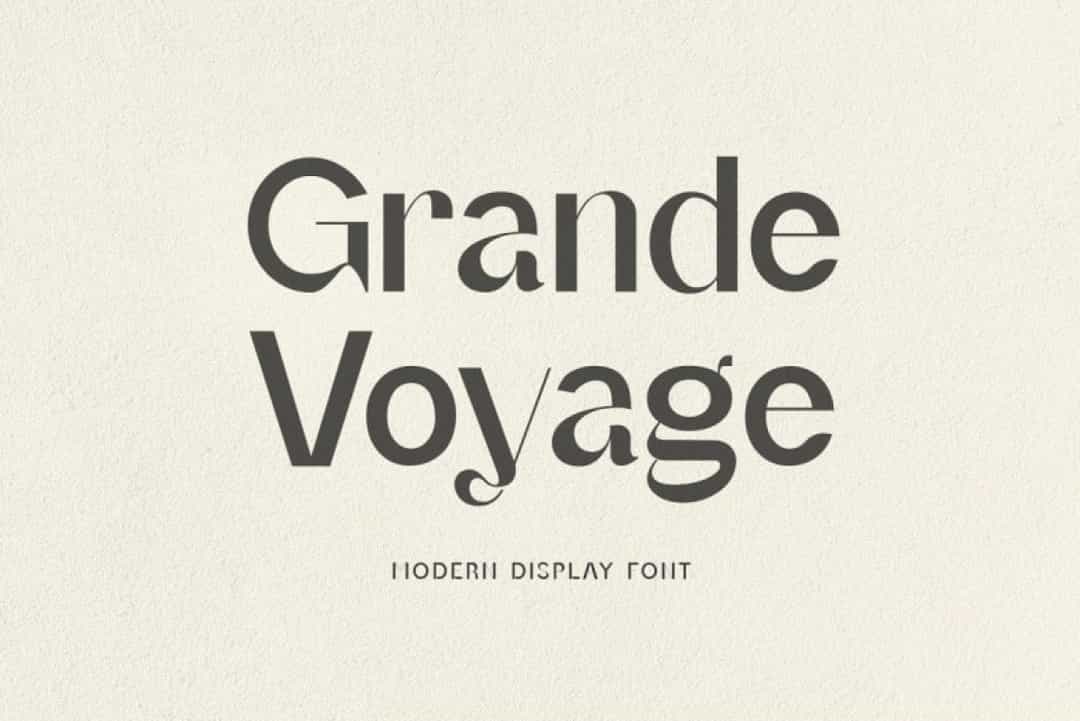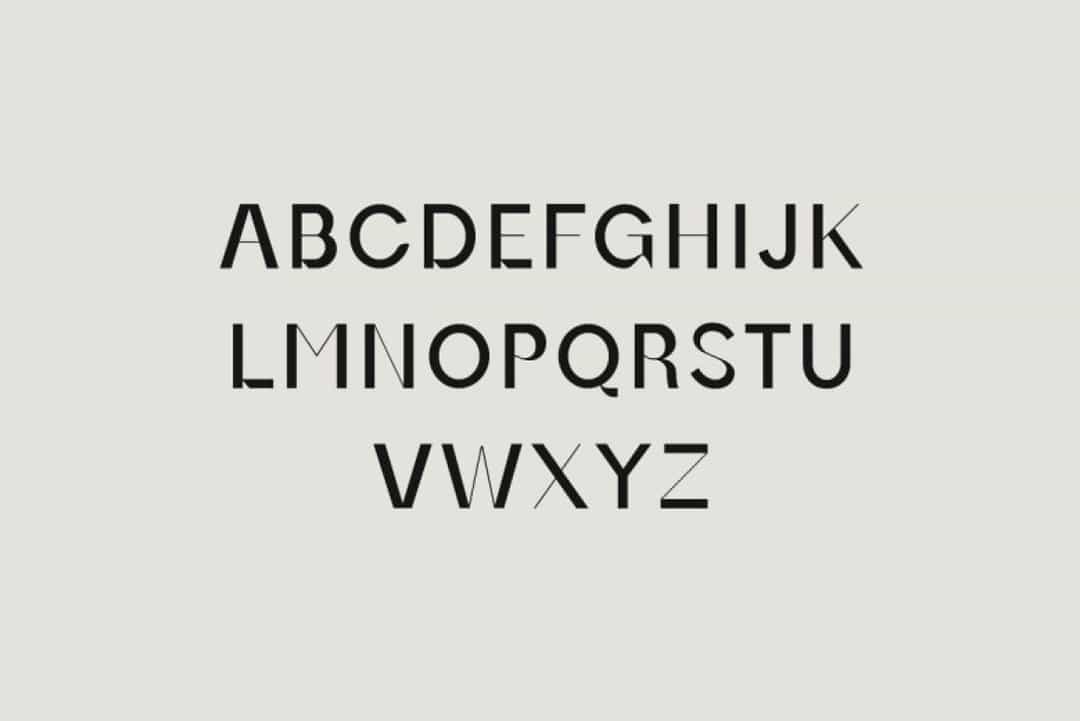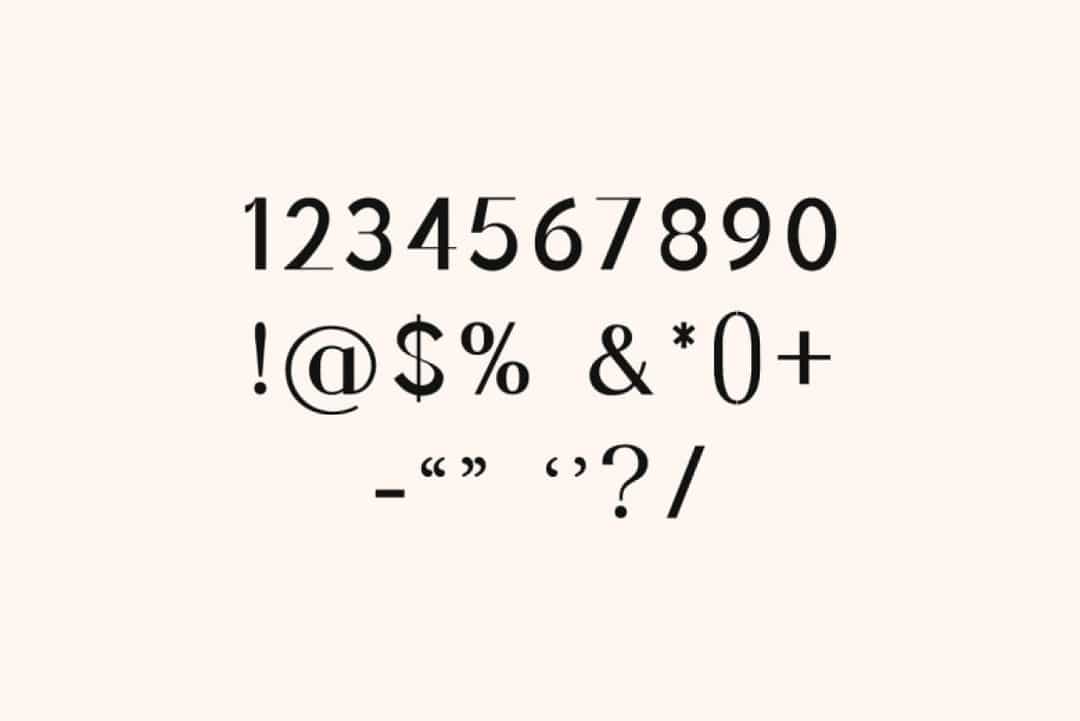
Grand Voyage is an elegant, sophisticated and contemporary typeface perfect for display that makes a bold statement. This font can be found in designs such as logos, stationery, signature wedding invitations, typography quotes for book or magazine covers and headers of websites and branding apparel packages and much more. Furthermore, fashion-oriented editorial designs often contain both feminine and masculine characteristics within them.